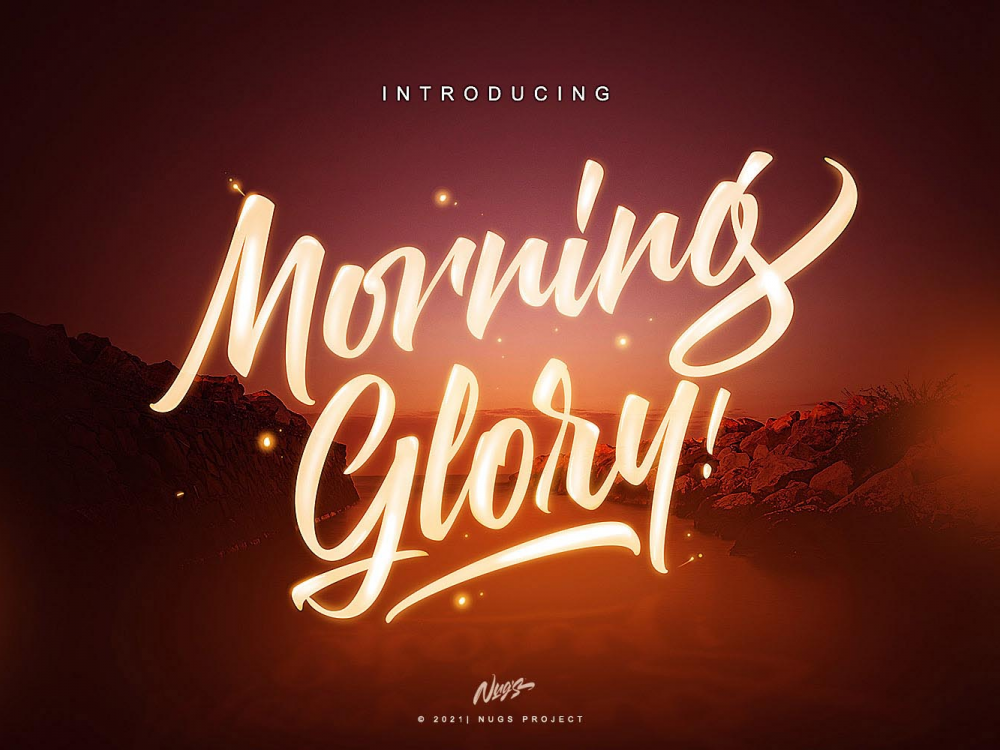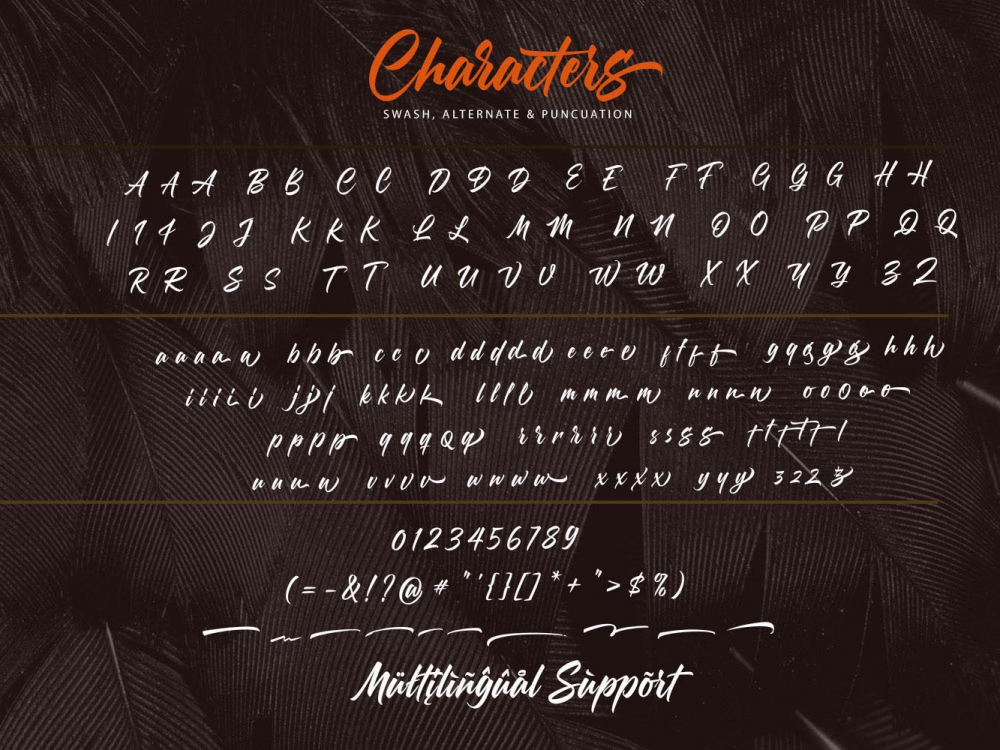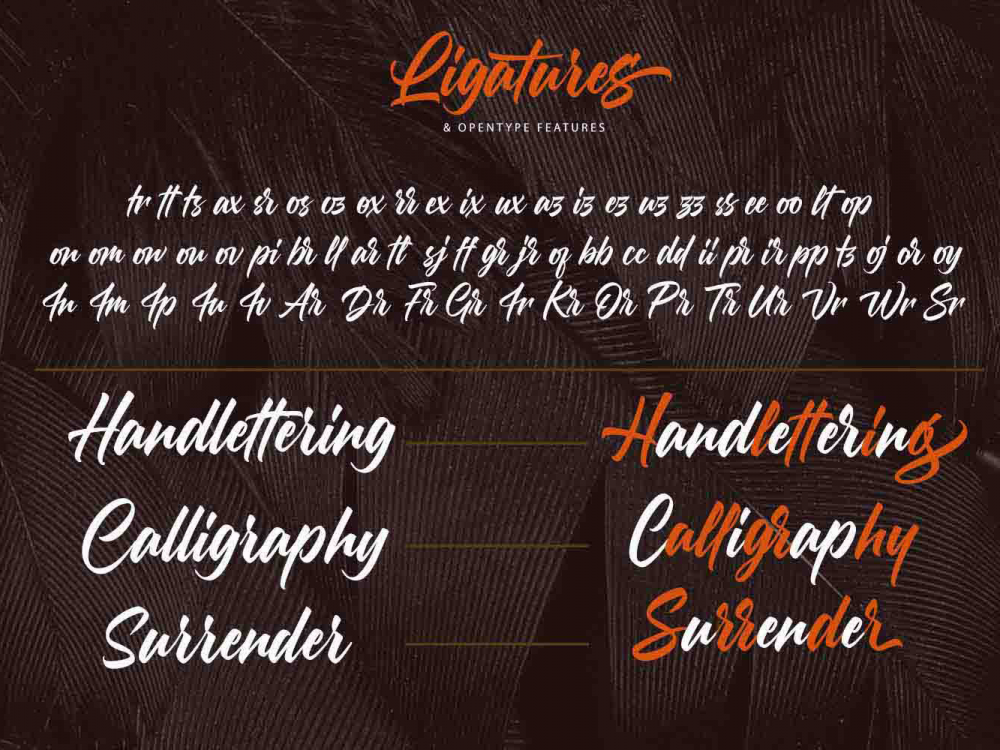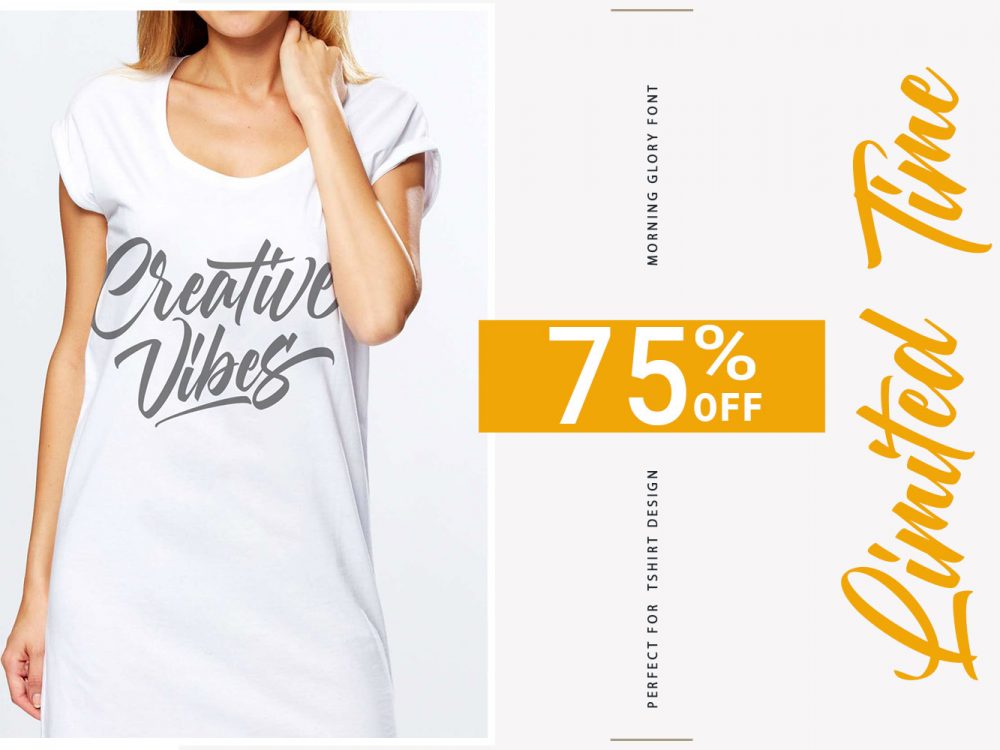
Morning Glory Free Font
Morning Glory Free Font is a handwritten font that features an elegant calligraphic style. This font is very suitable for creating various projects that require an interesting scripting handwritten font. Use this font to create memorable romantic posters, wedding invitations, greeting cards, branding, flyers, t-shirt and pillow prints, and more. If you like it don’t forget to check out the full version.